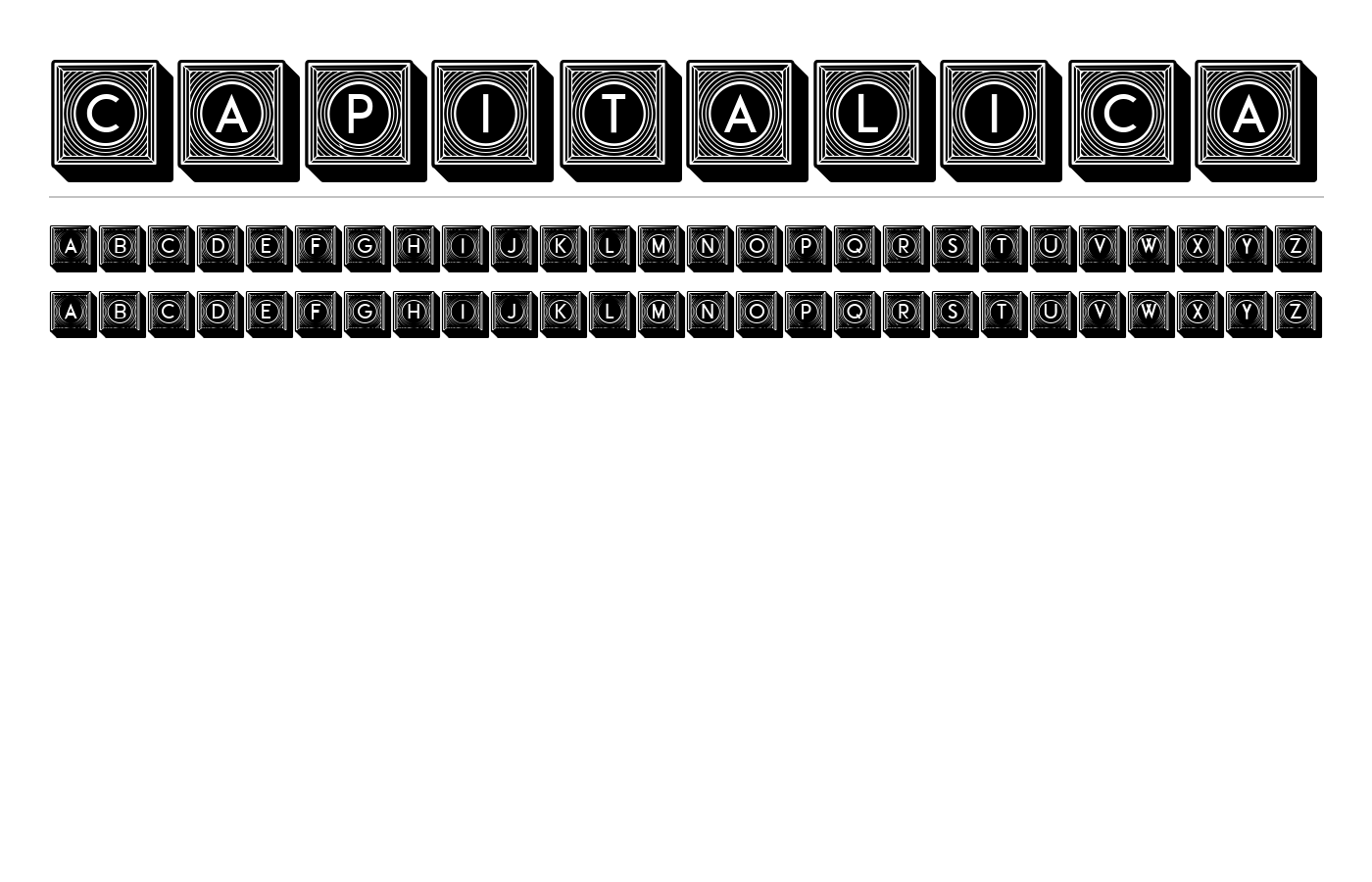
Capitalica is a bold, decorative sans serif font featuring thick, geometric letterforms enclosed within intricate concentric square borders, giving it a vintage yet modern look. Its heavy weight and compact style make it perfect for eye-catching headlines, logos, and packaging where a strong, stylish statement is needed. This font’s unique block design lends a playful yet sophisticated character, ideal for branding that aims to stand out with a touch of retro flair.
Capitalica Font
About Capitalica Font